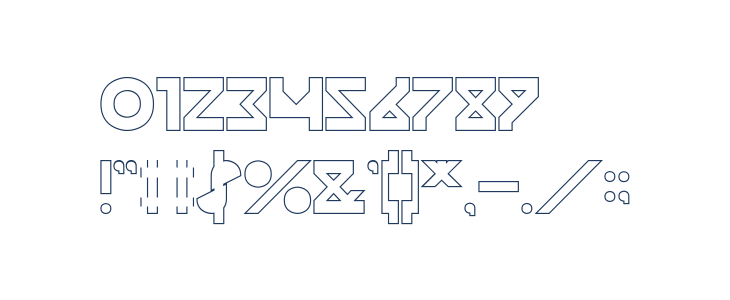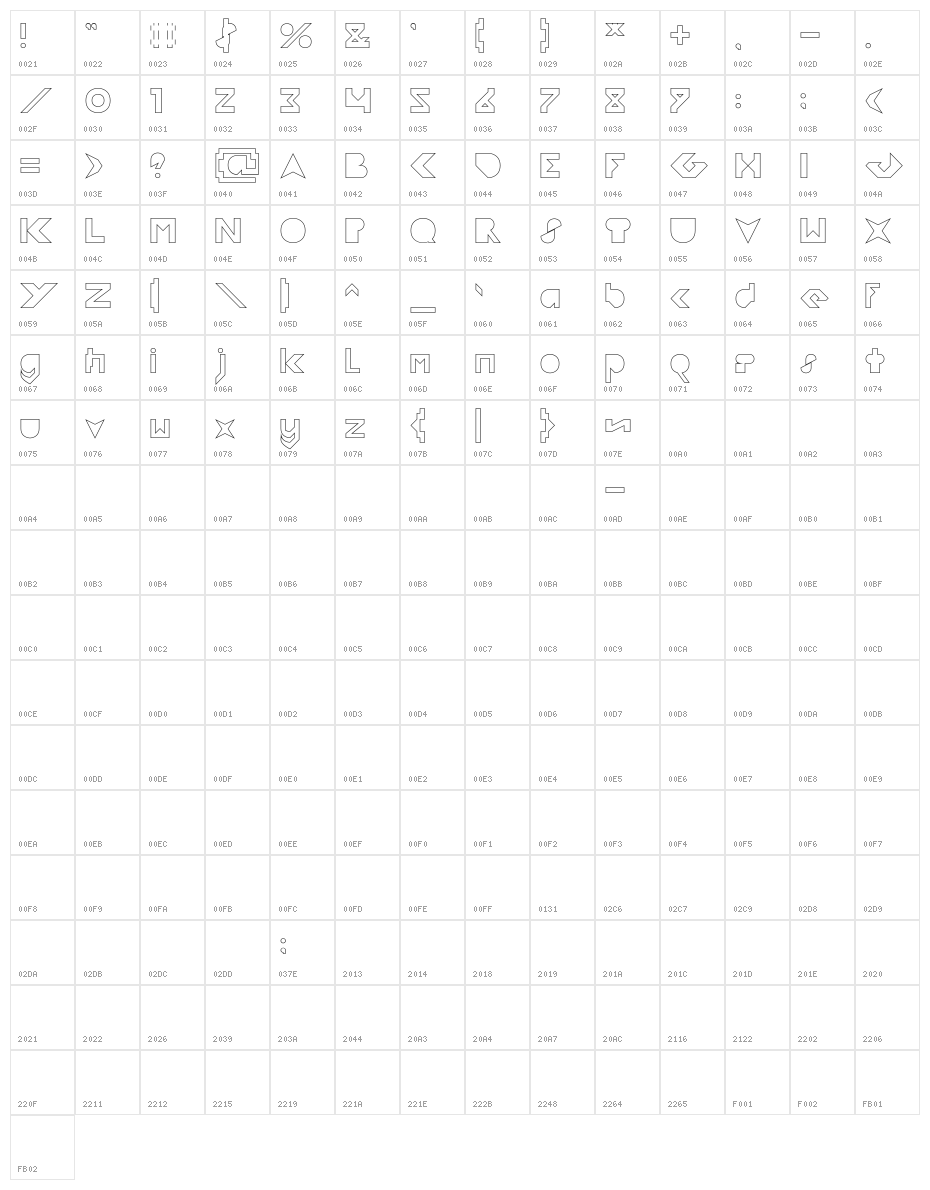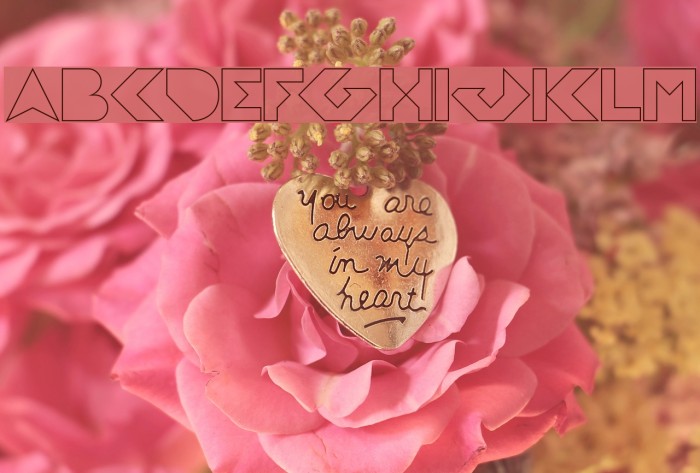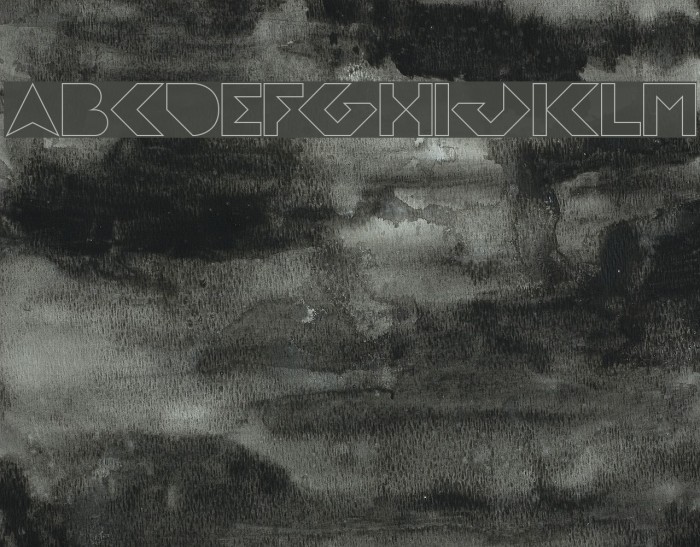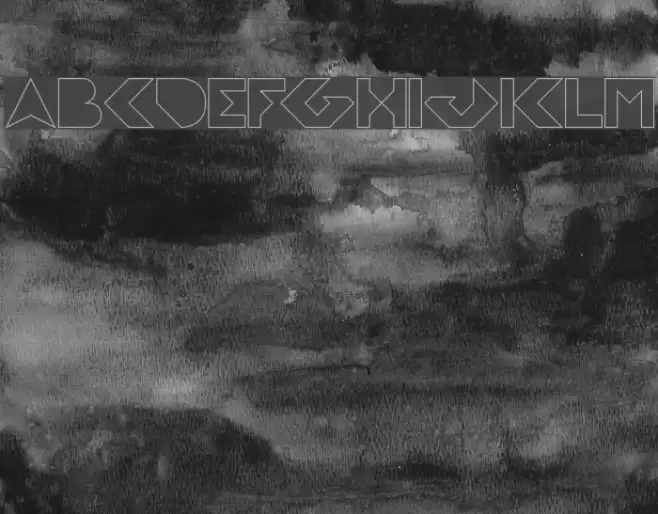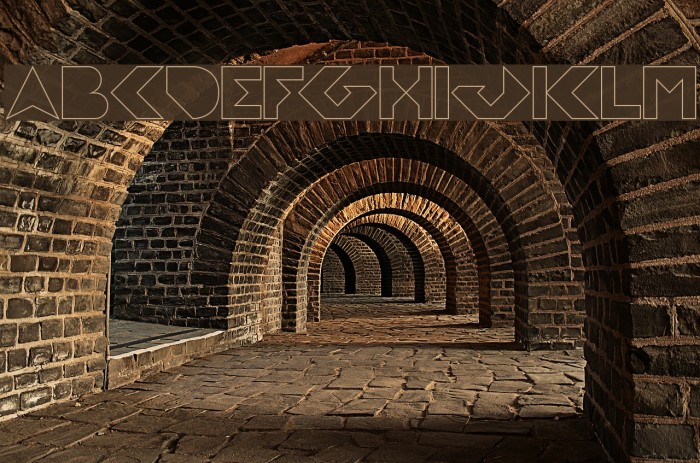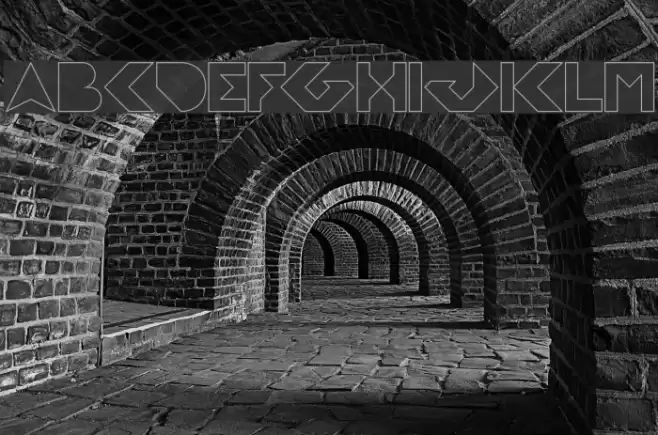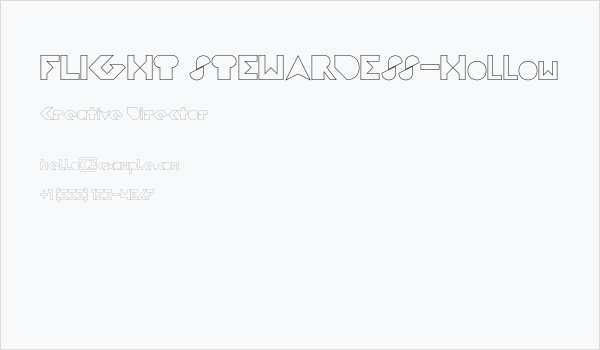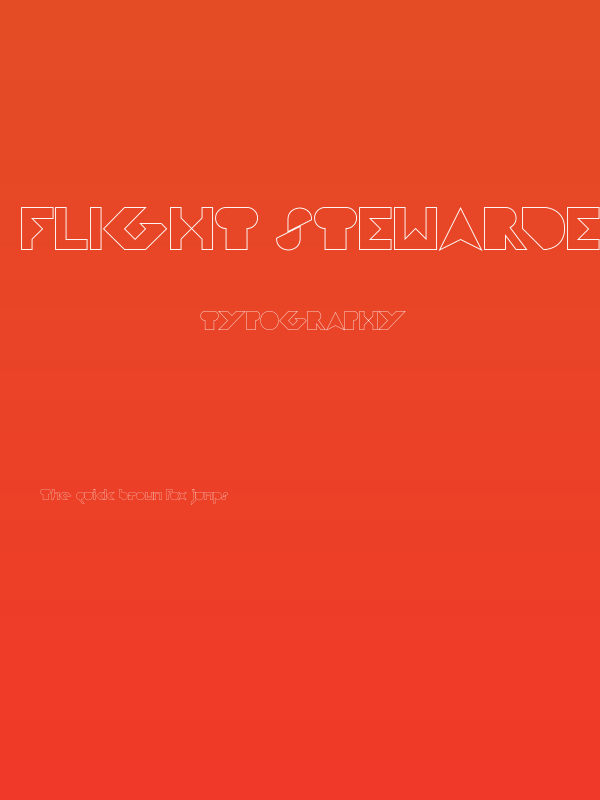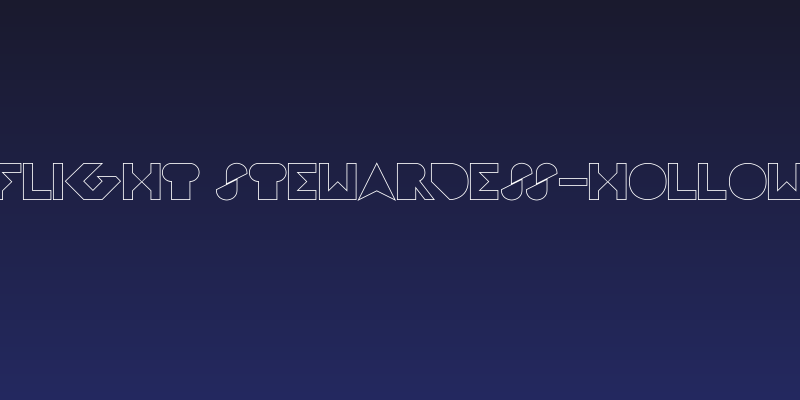
FLIGHT STEWARDESS-Hollow Font
FLIGHT STEWARDESS-Hollow Description
This font features a unique hollow design with geometric and angular shapes, creating a futuristic and modern appearance. The characters are outlined, giving them a three-dimensional look. The uppercase and lowercase letters maintain a consistent style, with sharp edges and clean lines. Numbers and special characters follow the same design principles, ensuring uniformity across the font. The overall aesthetic is bold and eye-catching, making it suitable for projects that require a standout typeface.